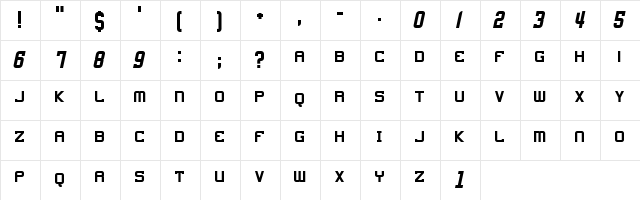
Copyright: 100% Freeware font by Abdul. Make of me what pleases you. This font is based on the Russell Athletic proprietary font used on many high school, college, and indoor football teams as well as in other sports as well.